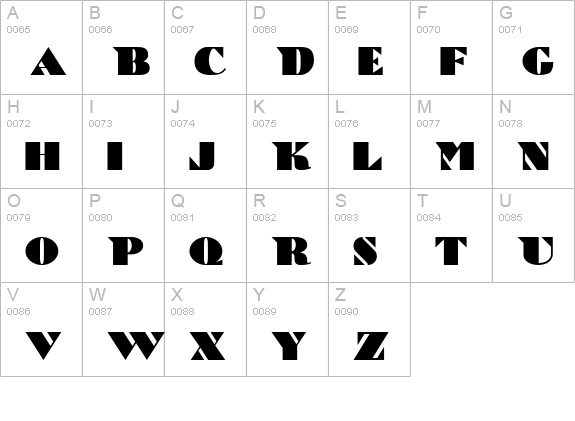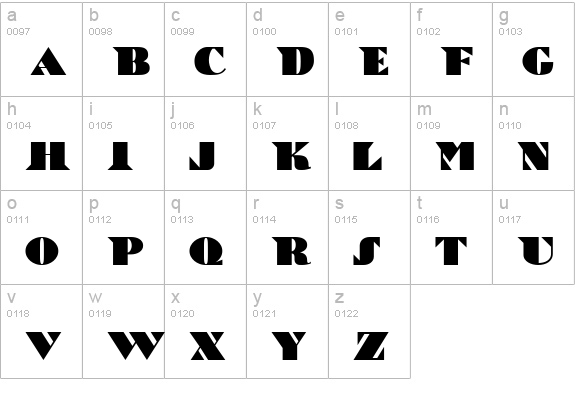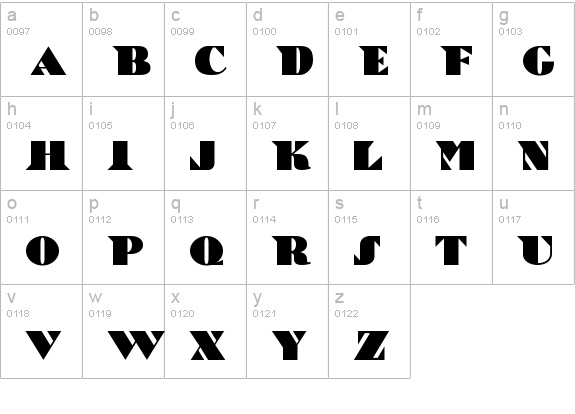
Bric-a-Braque NF Font Details
Bric-a-Braque NF font is a whimsical and playful typeface that exudes charm and character. With its unique blend of geometric shapes and artistic flair, this font is sure to make your designs stand out. The irregular strokes and quirky details give Bric-a-Braque NF a handcrafted feel that is perfect for adding a touch of creativity to any project. Best of all, Bric-a-Braque NF font is available for free download at FontsMarket.com. Whether you're working on a branding project, poster design, or any other creative endeavor, this font is a versatile and eye-catching choice. Let your imagination run wild with Bric-a-Braque NF and bring a touch of whimsy to your next design project.